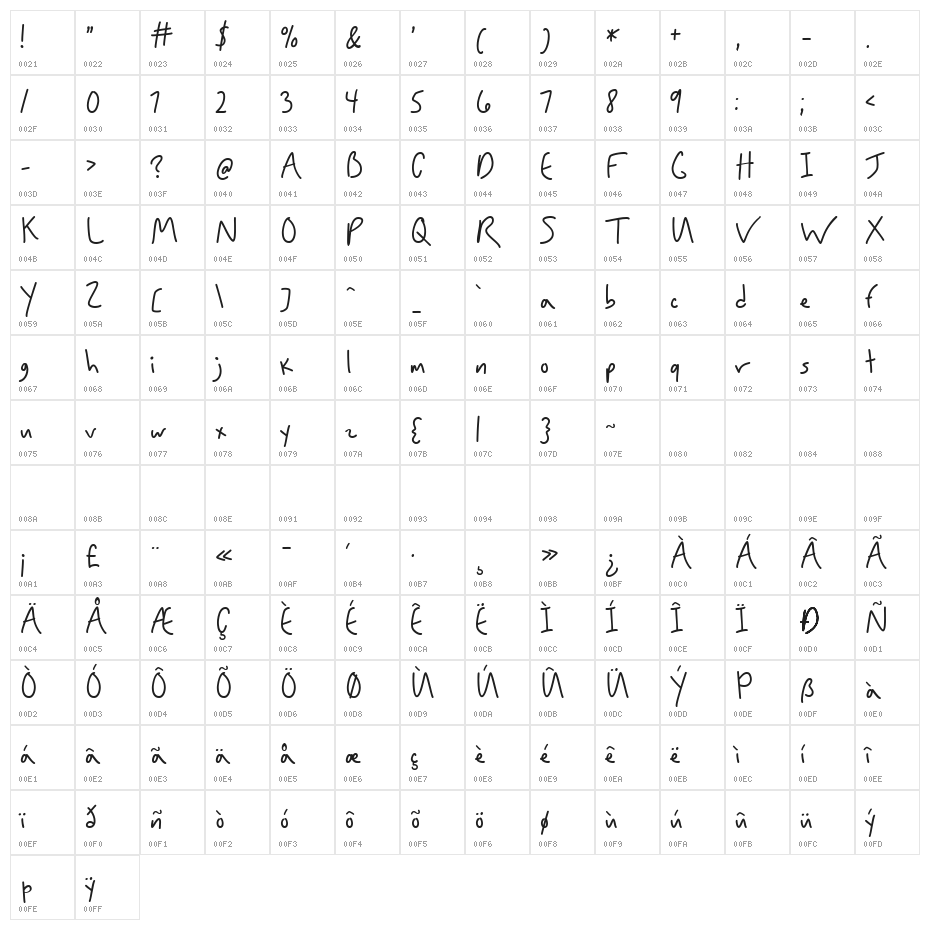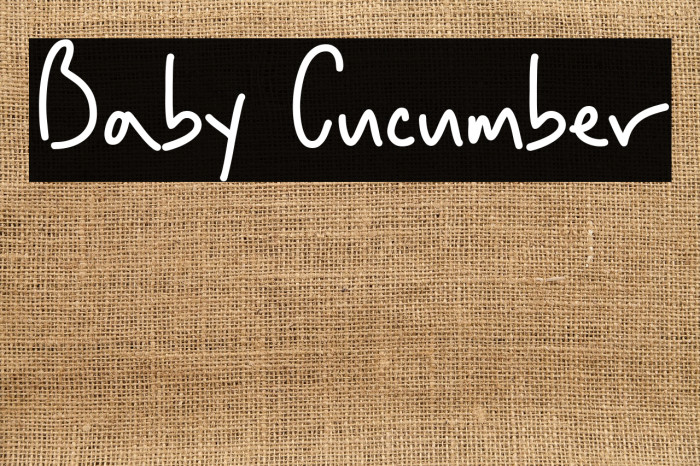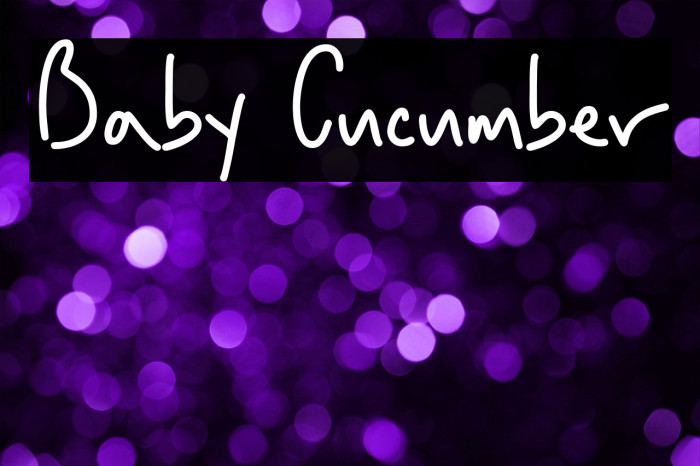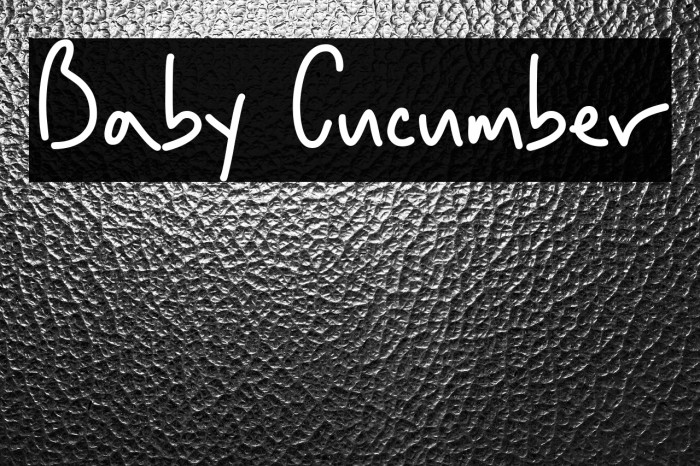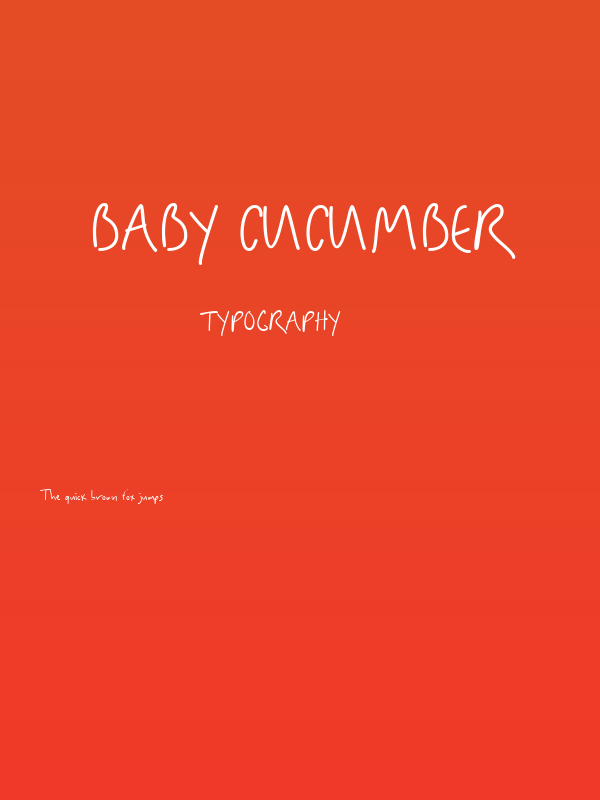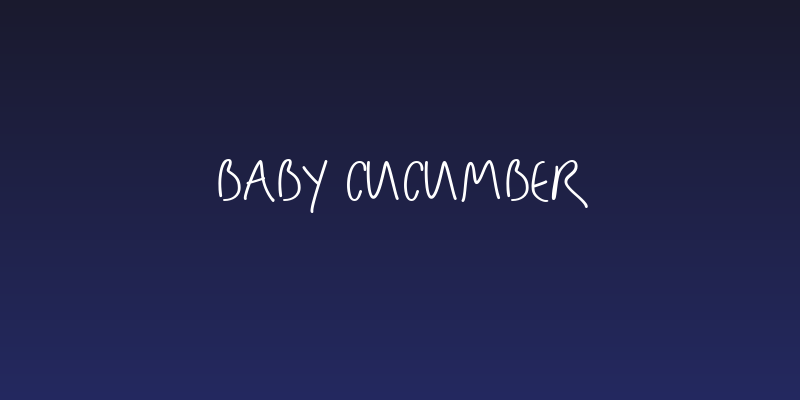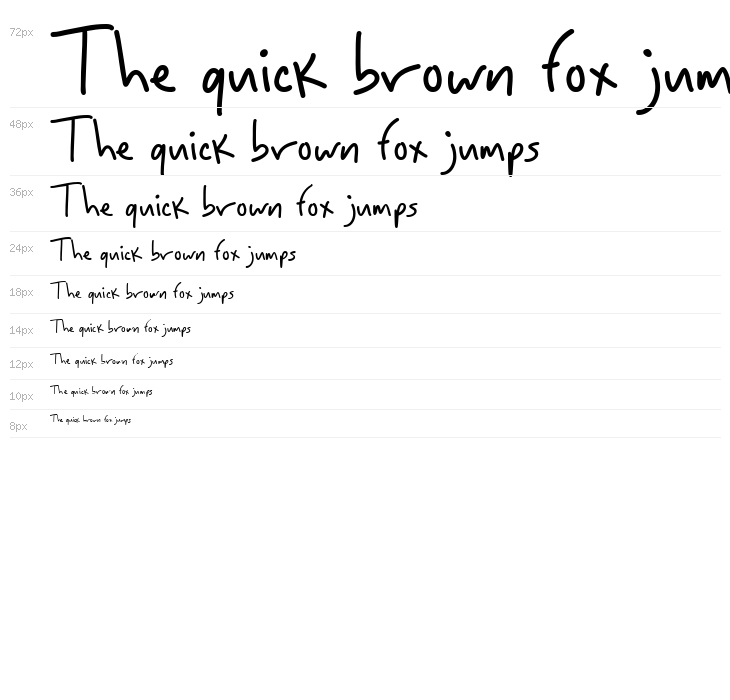
Baby Cucumber Font
Baby Cucumber Description
This playful and casual handwritten font exudes a sense of whimsy and informality. The characters are slightly irregular, mimicking the natural flow of handwriting, which gives it a personal and approachable feel. The strokes are consistent in width, providing a uniform appearance despite the playful nature. The uppercase letters are tall and slightly narrow, while the lowercase letters maintain a consistent height, adding to the font's readability. The numbers and special characters follow the same playful style, making them blend seamlessly with the alphabet. This font is perfect for projects that require a touch of personality and warmth.
| Proposed Projects | Ideal for greeting cards, children's books, personal blogs, and creative branding. |